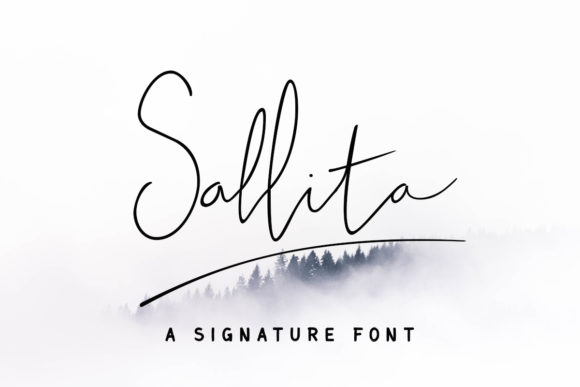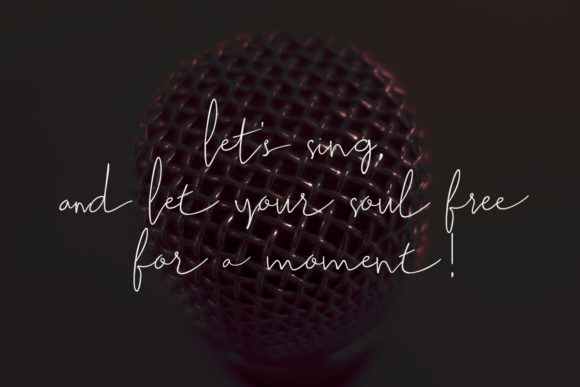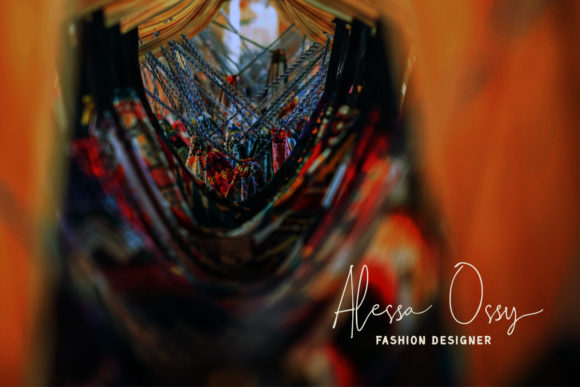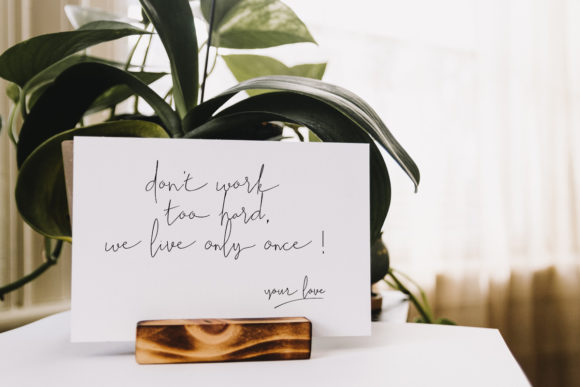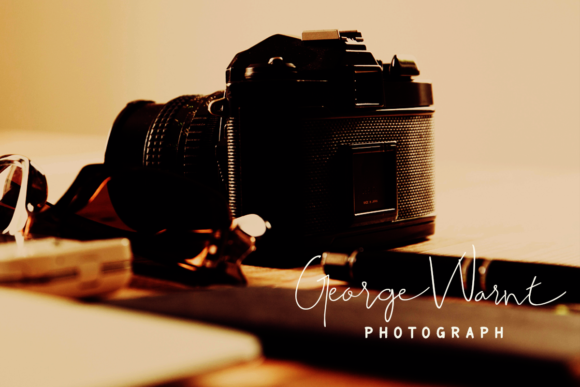
Sallita Font
About Sallita Font
Sallita is a light and beautiful signature font with a bold twist. It will add a unique and authentic spark to any design project.